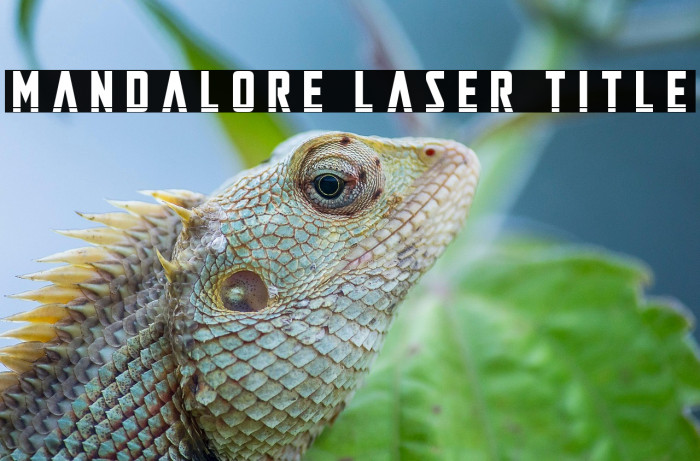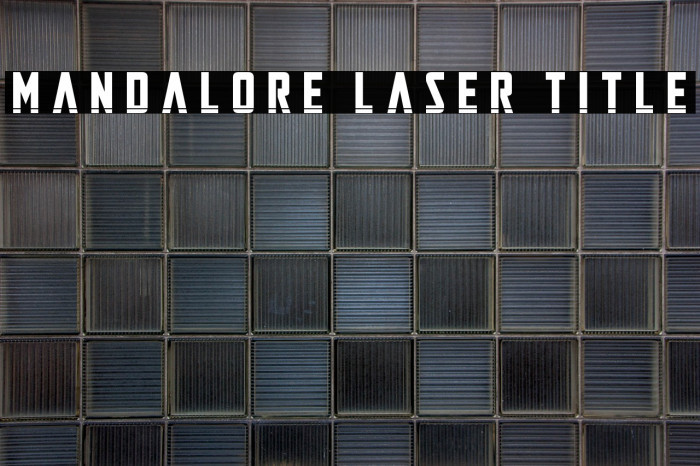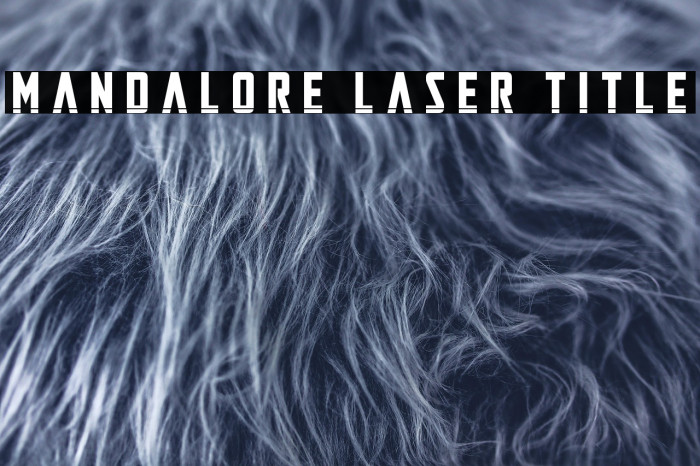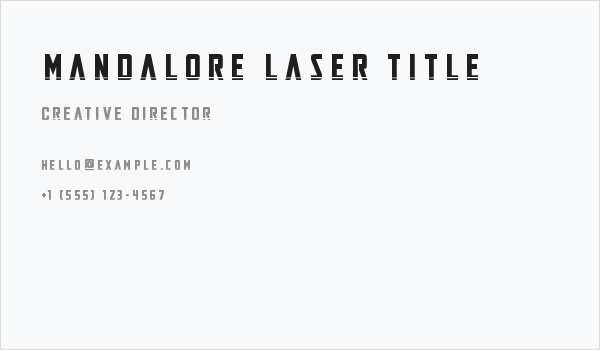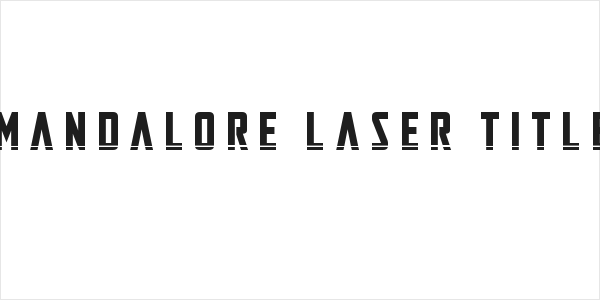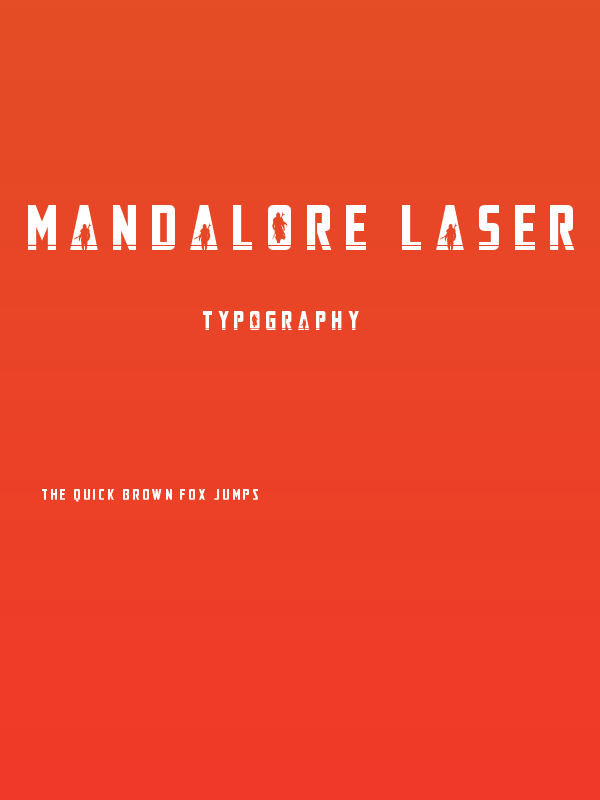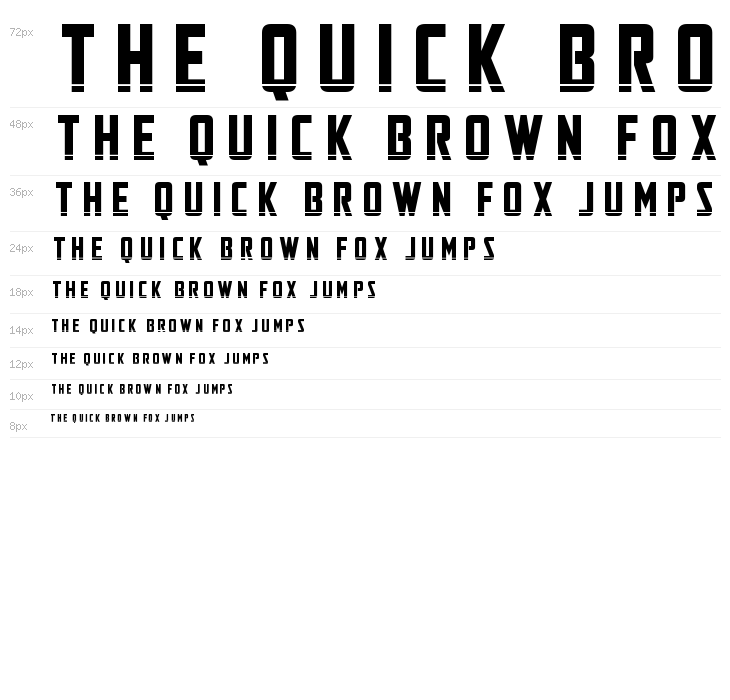
Mandalore Laser Title Font
Mandalore Laser Title Description
This font features a bold, futuristic design with a distinct sci-fi aesthetic. The characters are blocky and geometric, with sharp angles and clean lines that give it a modern, tech-inspired look. The uppercase and lowercase letters maintain a consistent style, with unique cutouts and negative spaces that add visual interest. The numbers and special characters are designed to match the overall theme, making this font ideal for projects that require a strong, impactful presence. The inclusion of silhouettes within some letters adds an extra layer of creativity and thematic depth.
| Overall Style | Futuristic, Sci-Fi |
| Use Case | Headlines, Logos, Titles |
| Proposed Projects | Ideal for movie posters, video game titles, sci-fi book covers, and branding for tech companies. |